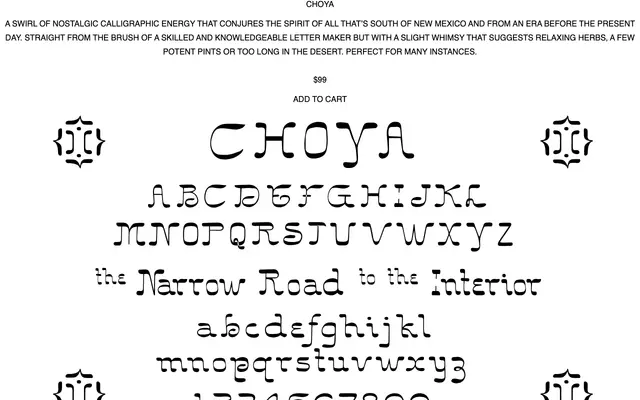
A brush script with calligraphic looseness and a sun-baked Southwestern character, somewhere between a skilled signpainter and a relaxed afternoon.
Choya draws on the calligraphic tradition of hand-lettered display work, with the kind of swirling energy associated with pre-digital Latin American and American Southwest vernacular graphics. The foundry describes it as coming from a knowledgeable letter maker but with a whimsy that suggests heat, leisure and mild intoxication. Well suited to packaging, labels and editorial work that wants warmth and period character without tipping into parody.
Described as coming straight from the brush of a letter maker with calligraphic energy, placing it firmly in the brush script category with a casual, hand-lettered quality.